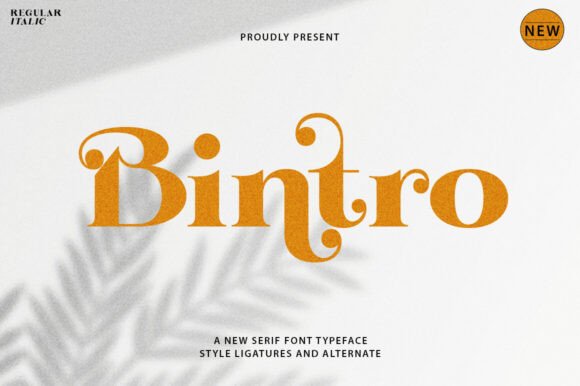
Bintro Font: Elevate Your Design with Elegance and Sophistication
The Bintro font is a serif typeface that exudes elegance, classic style, and sophistication. Its unique charm lies in the small decorative strokes or “serifs” at the edges of the letters, making it an ideal choice for editorial design, branding, and creative projects that aim to convey a luxurious and professional impression.
The Characteristics of Bintro Font
The Bintro font is characterized by its distinctive serifs, which add a touch of refinement and luxury to any design. The letters are crafted with precision, featuring subtle curves and lines that create a sense of harmony and balance. The font’s classic style makes it suitable for a wide range of applications, from traditional publishing to modern branding and advertising.
Uses of Bintro Font
The Bintro font is often used for headlines, logos, or visual elements that require strong visual appeal. Its elegant and sophisticated style makes it an excellent choice for:
- Editorial Design: Bintro font is perfect for magazine and newspaper headlines, article titles, and captions, adding a touch of sophistication and elegance to the layout.
- Branding: The font’s luxurious and professional style makes it suitable for logos, trademarks, and brand identity, helping to establish a strong and recognizable image.
- Creative Projects: Bintro font can be used in various creative projects, such as posters, flyers, brochures, and packaging design, adding a touch of elegance and refinement.
The Benefits of Using Bintro Font
Using the Bintro font offers several benefits, including:
- Unique Visual Identity: The font’s distinctive serifs and elegant style create a unique visual identity that sets your design apart from others.
- Professionalism: Bintro font conveys a sense of professionalism and luxury, making it suitable for high-end brands and publications.
- Versatility: The font’s classic style makes it versatile and adaptable to various design applications and contexts.
- Readability: The Bintro font is designed to be highly readable, even in small sizes, making it suitable for body text and captions.
How to Use Bintro Font Effectively
To use the Bintro font effectively, consider the following tips:
- Pair with Other Fonts: Combine Bintro font with other fonts to create a harmonious and balanced design.
- Adjust Font Sizes: Experiment with different font sizes to create visual hierarchy and emphasize important elements.
- Use Color Strategically: Use color to enhance the font’s elegance and sophistication, and to create contrast and visual interest.
- Consider Line Spacing: Adjust line spacing to ensure optimal readability and flow.
The Bintro font is a sophisticated and elegant serif typeface that can elevate your design to new heights. Its distinctive features, versatility, and readability make it an excellent choice for editorial design, branding, and creative projects. By understanding the characteristics and benefits of the Bintro font, and using it effectively, you can create stunning designs that convey a luxurious and professional impression.
- What is the Bintro font? The Bintro font is a serif typeface characterized by its elegant, classic, and sophisticated style.
- What are the uses of Bintro font? The Bintro font is often used for headlines, logos, or visual elements that require strong visual appeal, including editorial design, branding, and creative projects.
- What are the benefits of using Bintro font? The benefits of using Bintro font include unique visual identity, professionalism, versatility, and readability.